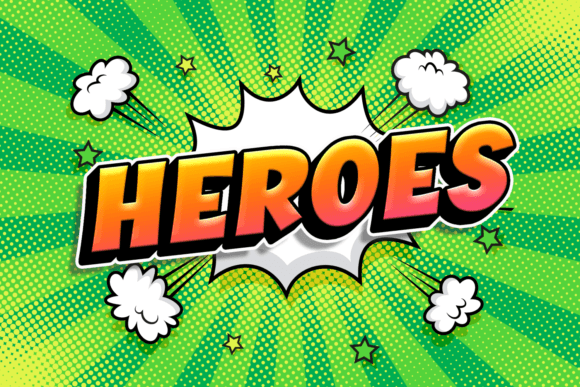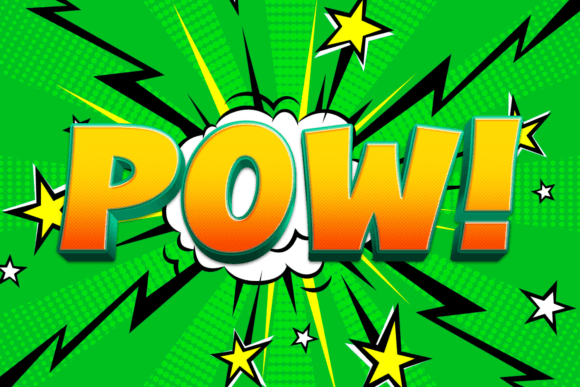
Introduction to Pow Boom Font
Have you ever stared at a blank page, feeling the weight of a project deadline looming over you? The blank space seems to scream for creativity, but the ideas just aren’t flowing. It’s moments like these that a trusty design resource can be a lifesaver. Enter the Pow Boom Font, a comic-style display font that’s sure to bring some much-needed excitement to your creative project.
With its thick, adaptable lines and versatility, the Pow Boom Font is the perfect tool for designers looking to make a statement. Whether you’re working on a headline, title, book cover, or advertising material, this font is sure to grab attention. And the best part? It’s available for free download, making it an accessible design resource for creatives of all levels.
What sets the Pow Boom Font apart from other design elements is its high-quality, transparent background, allowing it to seamlessly integrate into any project. As a valuable addition to your design arsenal, the Pow Boom Font is a must-have for any designer looking to add some visual punch to their work.
Key Features of Pow Boom Font
- Unique and playful design, perfect for creative projects and adding a touch of fun to your designs.
- Comes with a transparent background, allowing for easy integration into any design or creative project.
- Designed to be highly legible, even at small font sizes, making it ideal for use in a variety of creative projects.
- Resolution-independent, allowing for use in both print and digital designs without any loss of quality.
Honest Review: Pow Boom Font
I recently stumbled upon the Pow Boom Font while searching for a fun and modern design resource for a creative project. As a designer, I appreciate high-quality fonts that can add a pop of personality to any design. The Pow Boom Font delivers on this promise.
Here are some of the things I like about the Pow Boom Font: ✨
- The transparent background makes it easy to overlay on images or use as a standalone element.
- The font is highly customizable, allowing me to adjust the size, color, and style to suit my design needs.
While the Pow Boom Font is a great addition to any design arsenal, there are a few limitations to consider: ⚠️
- The font may not be suitable for all types of projects, particularly those that require a more traditional or formal look.
- The font can be a bit overwhelming if used in excess, so be sure to use it sparingly.
Overall, I’m impressed with the Pow Boom Font and would definitely recommend it to designers looking for a fun and modern design resource. With its high quality and flexibility, it’s a great addition to any design project.
Tips for Getting the Most Out of Pow Boom Font
When using the Pow Boom Font, be sure to take advantage of its transparent background, which makes it perfect for adding text to images or designs with a transparent background. You can also use it to create bold, eye-catching headings and titles for your project.
The Pow Boom Font is a versatile design resource that can be used in a variety of creative projects, including social media graphics, flyers, posters, and more. Its high-quality design makes it perfect for use in both digital and print projects.